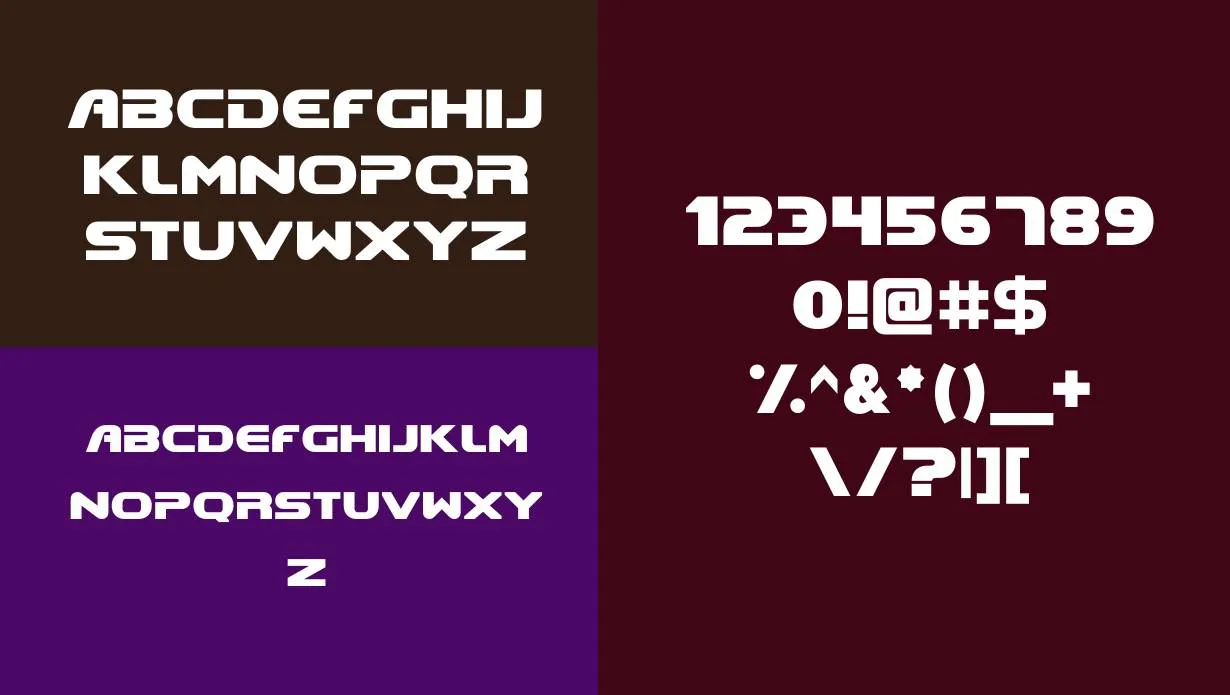
Doom Font brings a touch of mystery and edginess to your designs, making it an ideal choice for projects with a gothic or unconventional aesthetic. The stylized characters of
Doom Font adds an element of intrigue to your text, creating an atmosphere of suspense and excitement. Whether you’re working on creative ventures that embrace darkness or want to add a unique flair to your text, Doom Font is the font that brings a sense of drama and intensity to your words.
| Name | Doom Font |
| Designer | Amazingmax |
| Style | Sci-fi |